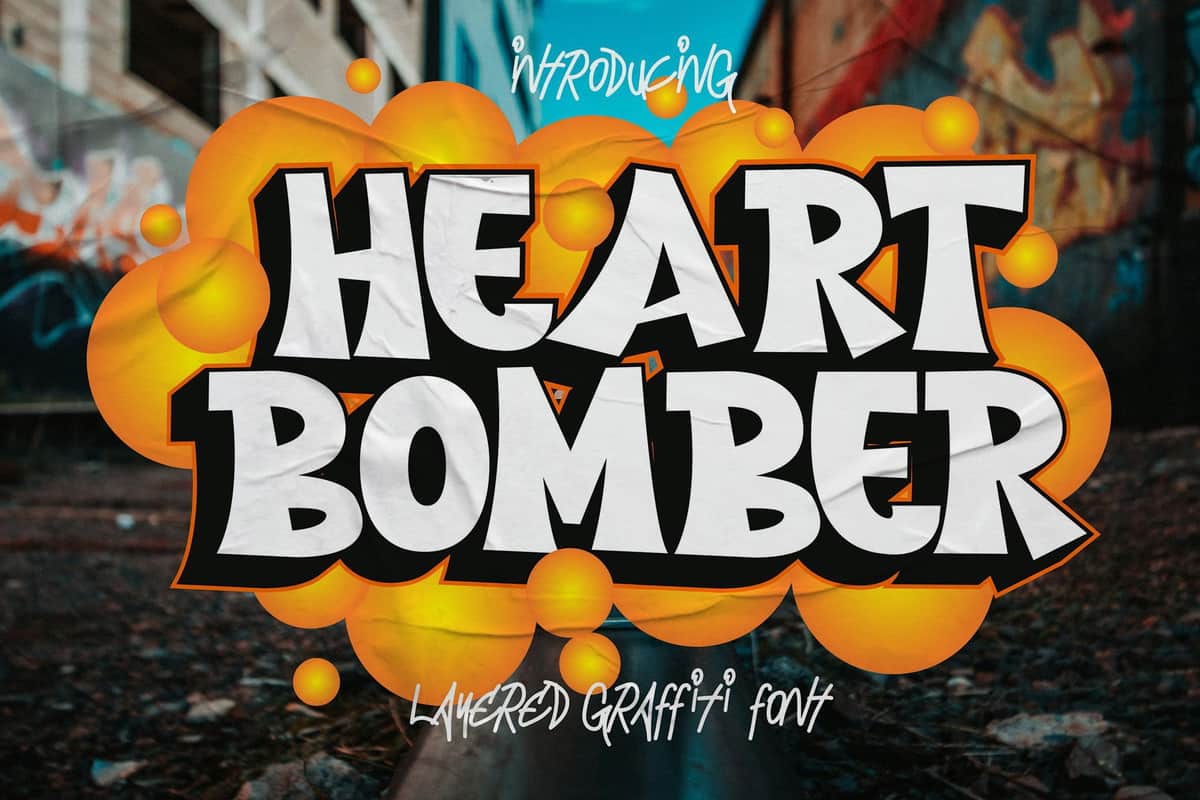
Heart Bomber
Get ready to ignite your designs with Heart Bomber – the layered graffiti font that packs a punch of urban attitude and explosive creativity. More than just a font, Heart Bomber is a dynamic toolkit for crafting bold and eye-catching street-inspired designs that captivate audiences and leave a lasting impression.